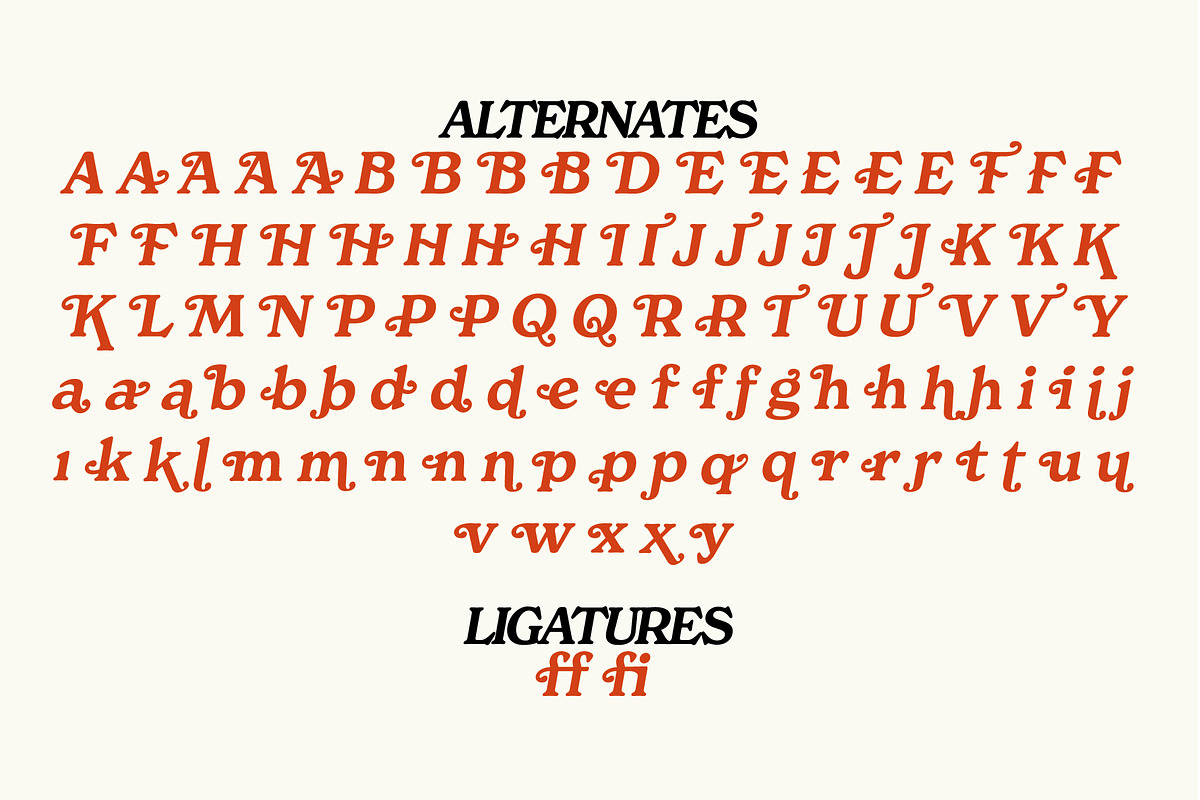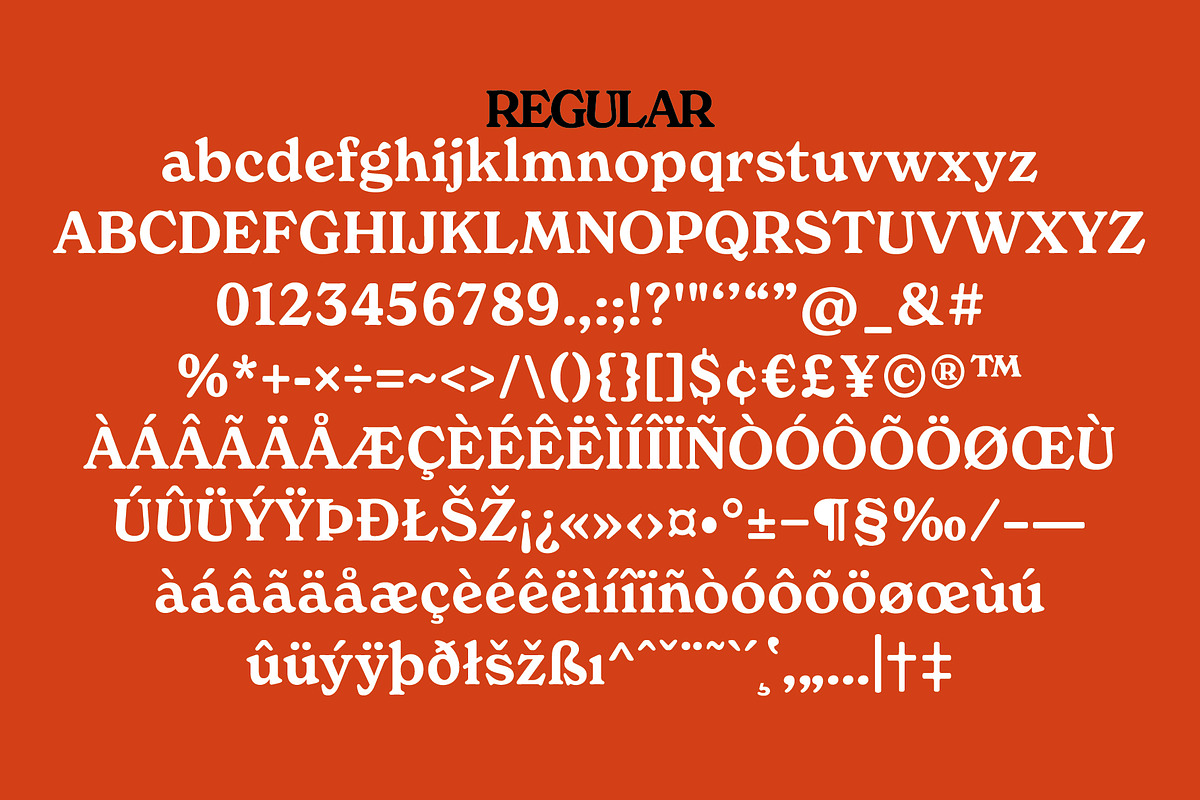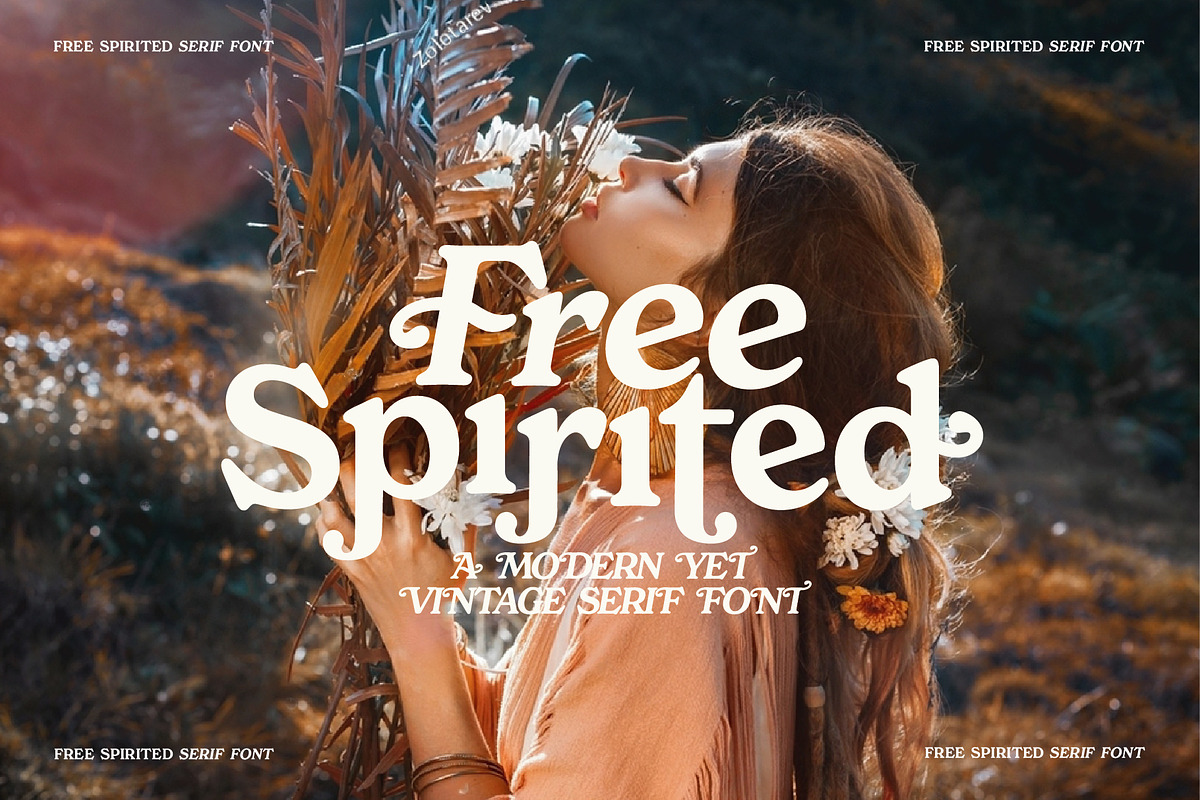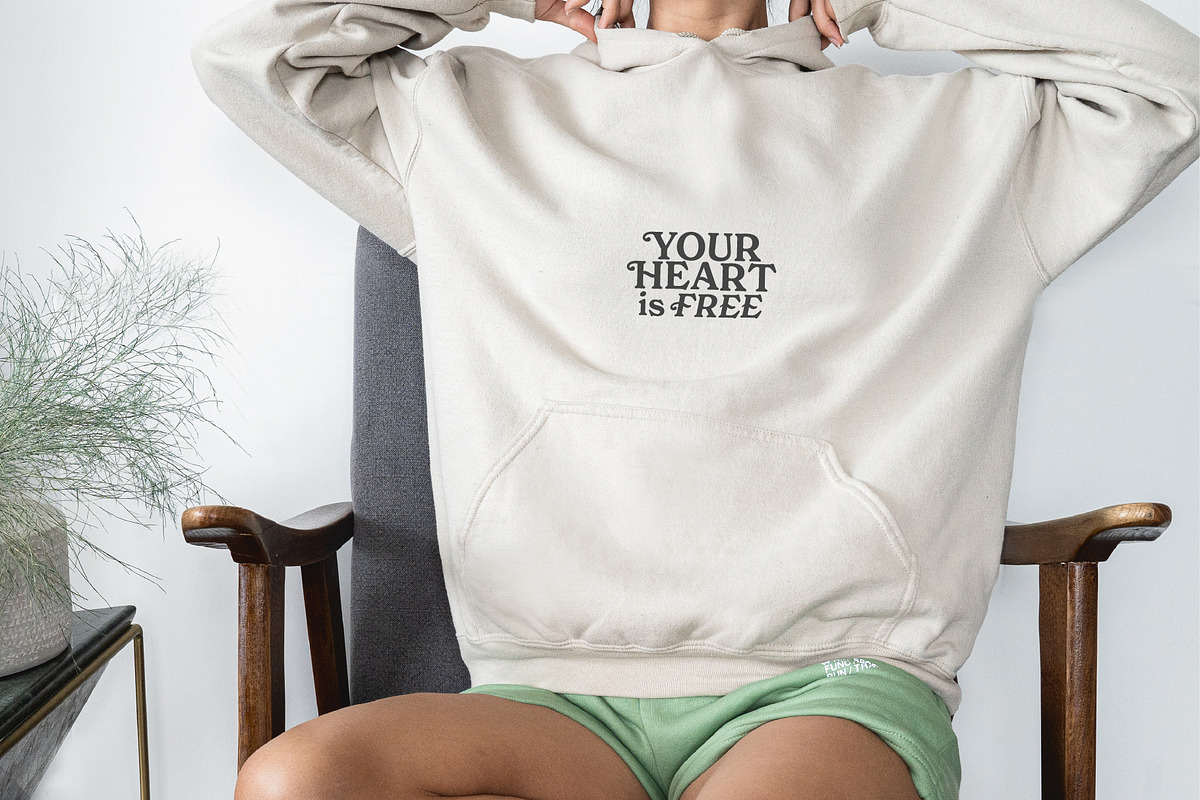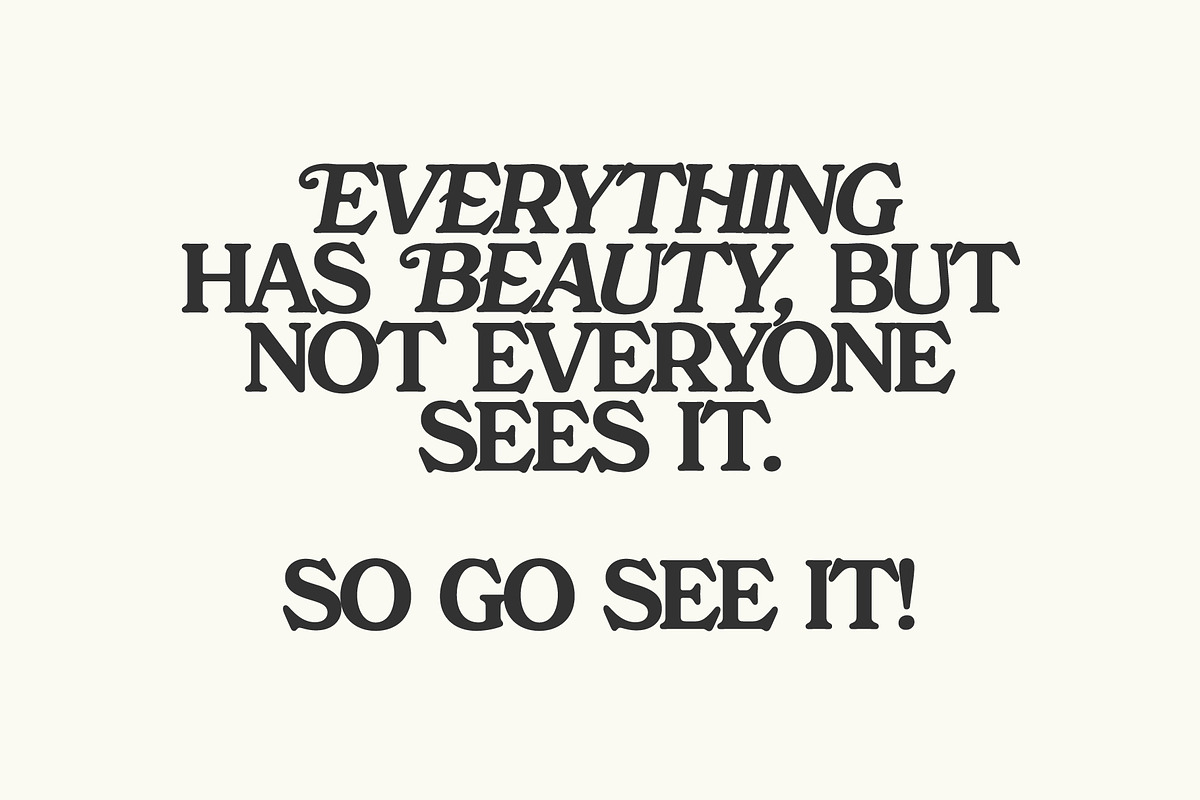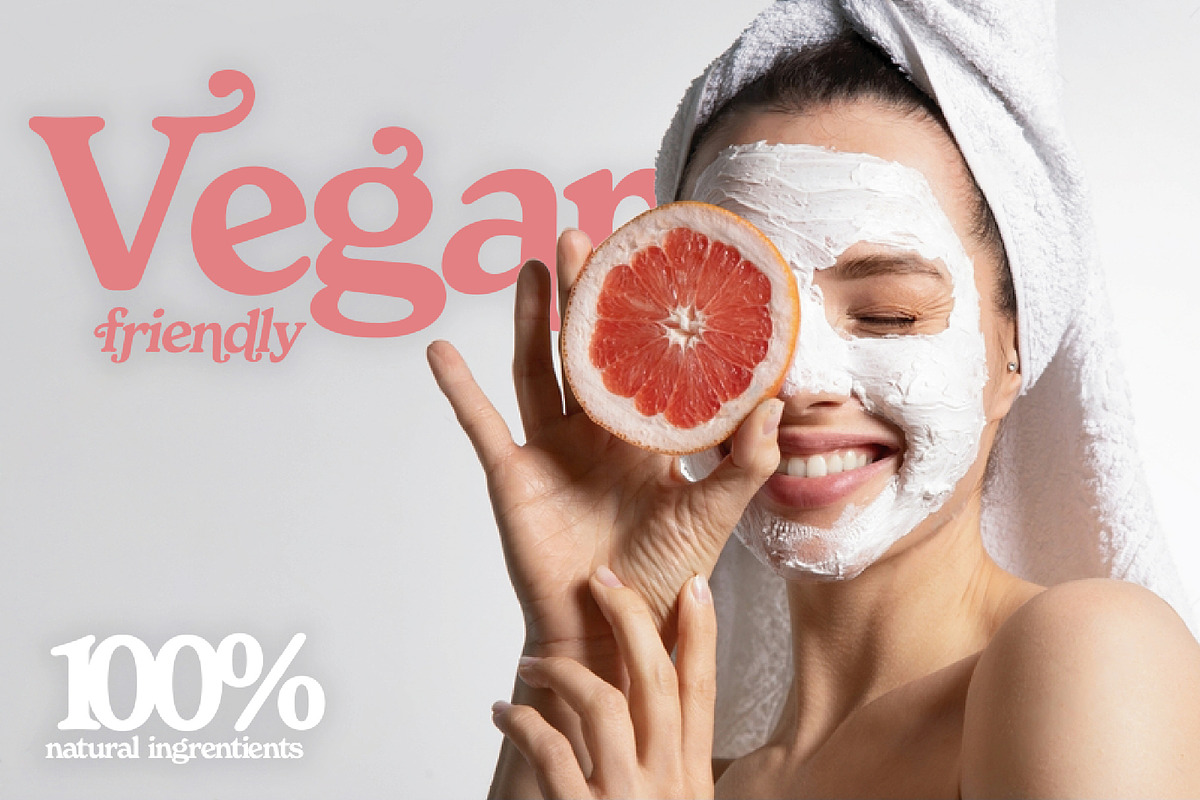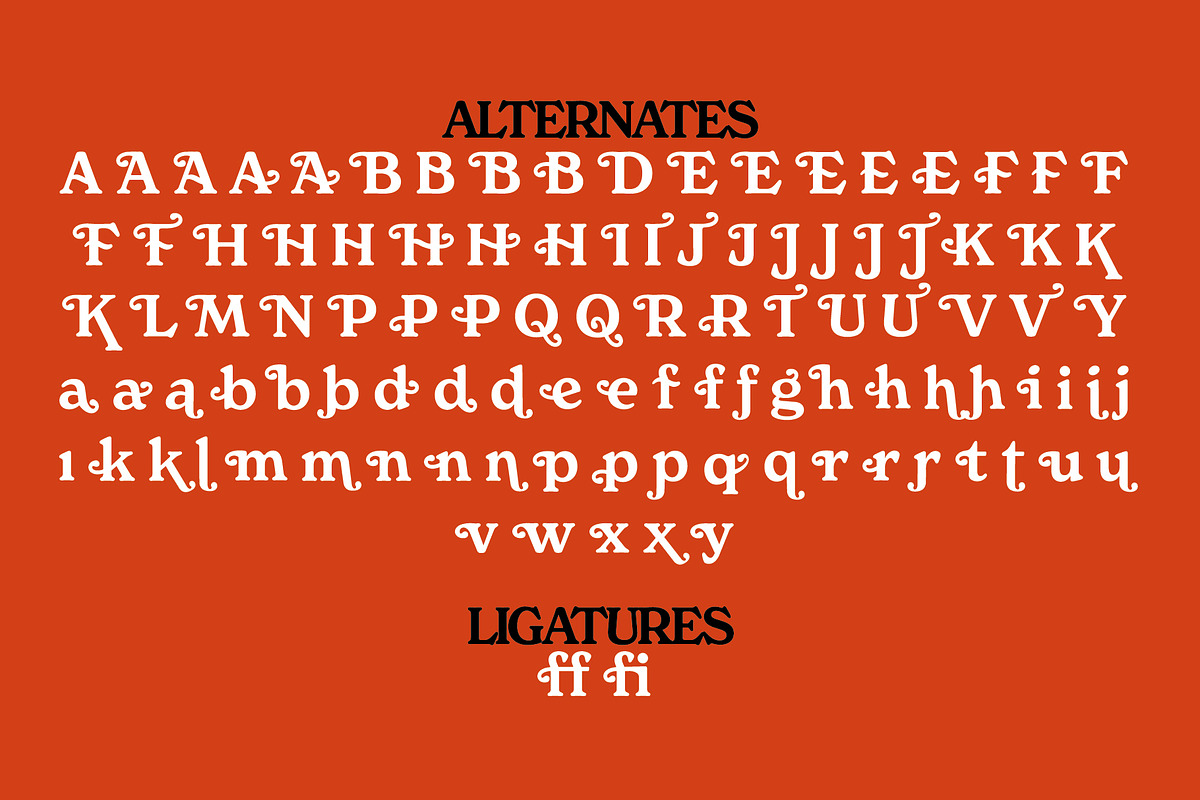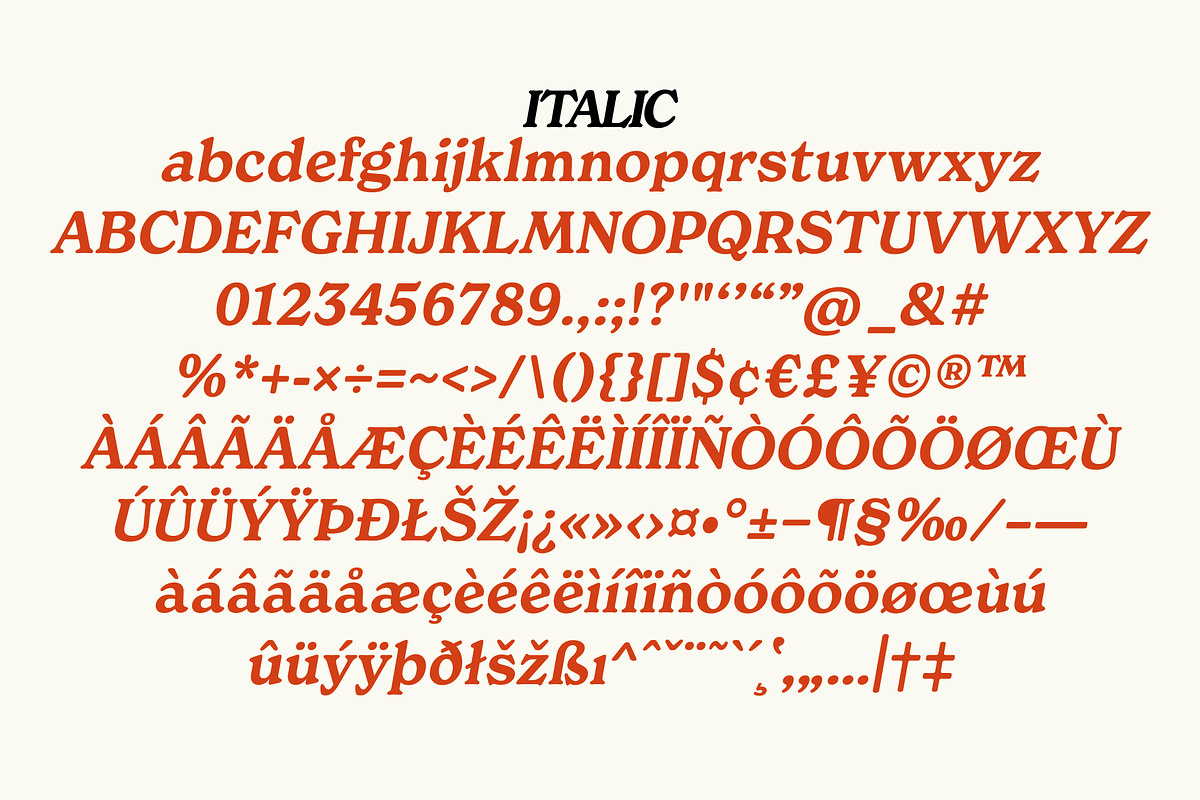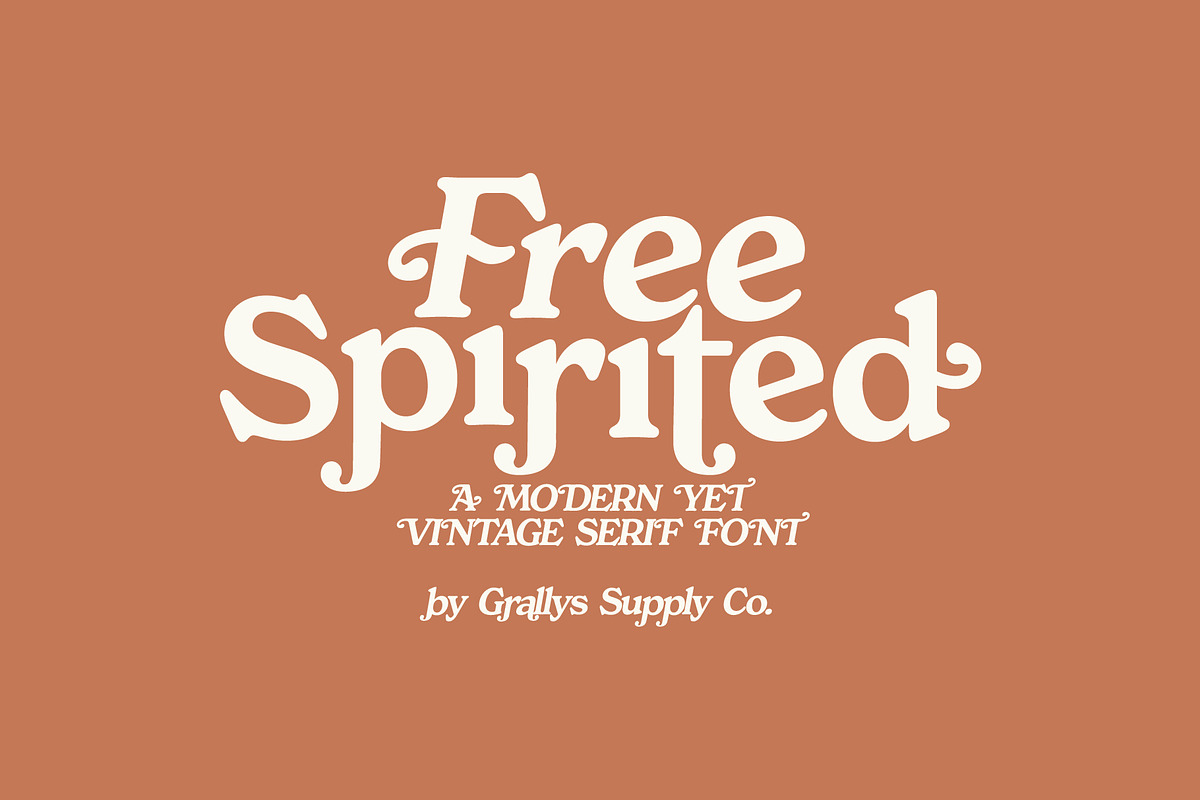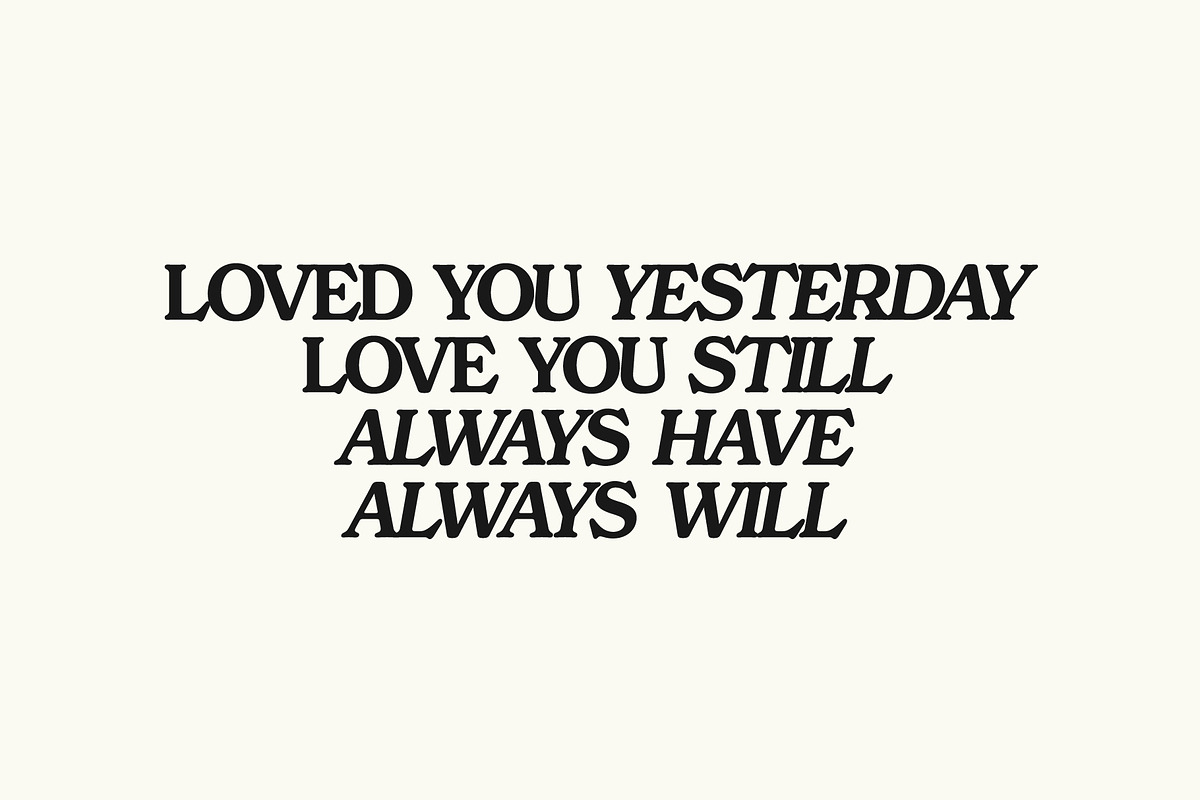
Free Spirited
Introducing, Free Spirited; A modern, yet vintage font. This font comes in both Regular and Italic.
Language support includes : English, Danish, French, German, Spanish, Swedish and Swiss German.
Comes complete with uppercase, numbers, symbols, alternatives and ligatures